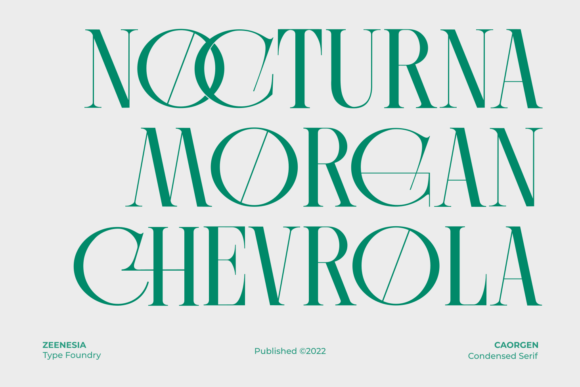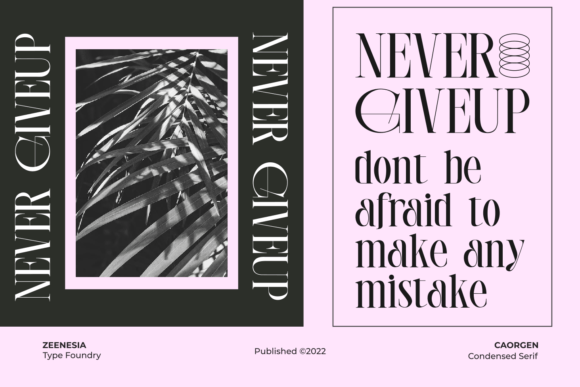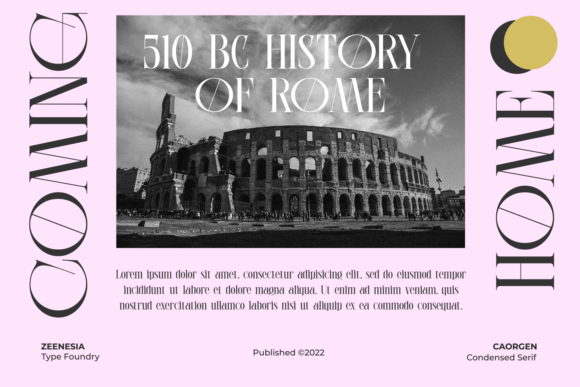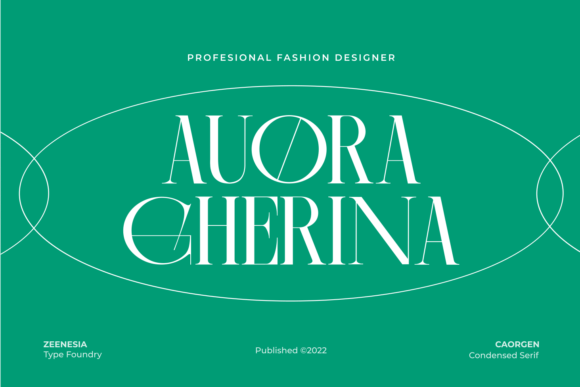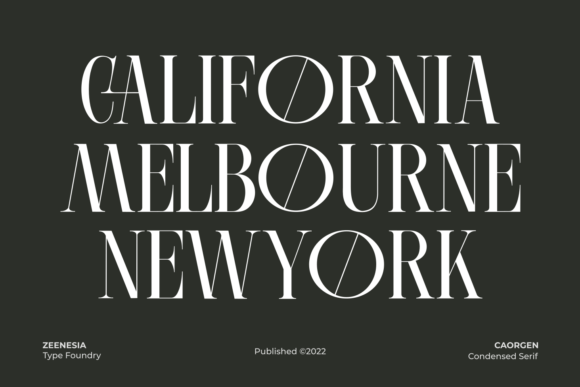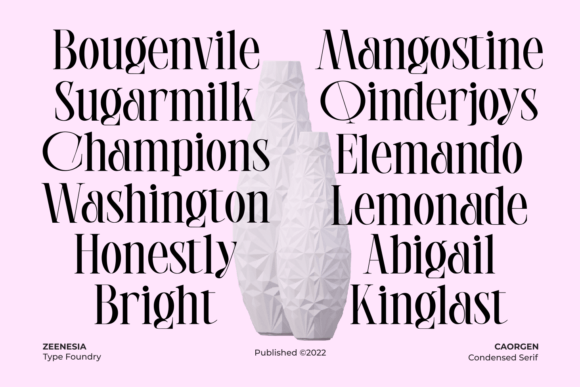
Introducing Caorgen Font: Elevate Your Designs with Style and Sophistication
In the world of typography, fonts play a crucial role in conveying the tone and personality of a design. For designers and crafters looking to create fashionable and modern designs, Caorgen Font is an excellent choice. This stylish and modern serif font is designed to add a touch of elegance and sophistication to any project.
What Makes Caorgen Font Stand Out?
Caorgen Font boasts a unique personality and charm that sets it apart from other fonts. Its serif design gives it a classic and timeless feel, while its modern twists make it perfect for contemporary designs. Whether you’re working on a branding project, a fashion magazine, or a craft project, Caorgen Font is sure to make a statement.
One of the standout features of Caorgen Font is its PUA (Private Use Area) encoding. This means that you can access all the glyphs and ligatures with ease, giving you greater flexibility and creative control over your designs. With PUA encoding, you can easily insert special characters, swashes, and other unique elements to add an extra layer of sophistication to your work.
Caorgen Font is an excellent choice for designers and crafters who want to create high-quality, professional-looking designs. Its versatility makes it suitable for a wide range of projects, from:
- Fashion branding and advertising
- Magazine and editorial design
- Stationery and invitations
- Craft projects, such as quilting, sewing, and paper crafting
Key Features of Caorgen Font
Here are some key features that make Caorgen Font an excellent choice for designers and crafters:
- Stylish and modern serif design
- Unique personality and charm
- Perfect for creating fashionable and sophisticated designs
- Suitable for a wide range of projects, from branding to craft projects
Tips for Using Caorgen Font
Here are some tips for getting the most out of Caorgen Font:
- Experiment with different font sizes and styles to create visual interest
- Use the glyphs and ligatures to add an extra layer of sophistication to your designs
- Pair Caorgen Font with other fonts to create a unique and harmonious typography combination
- Don’t be afraid to get creative and try new things – Caorgen Font is designed to be versatile and adaptable
In conclusion, Caorgen Font is an excellent choice for designers and crafters looking to create stylish and modern designs. Its unique personality and charm, combined with its PUA encoding and versatility, make it a valuable addition to any design toolkit. Whether you’re working on a professional project or a personal craft project, Caorgen Font is sure to elevate your designs and add a touch of sophistication and elegance.